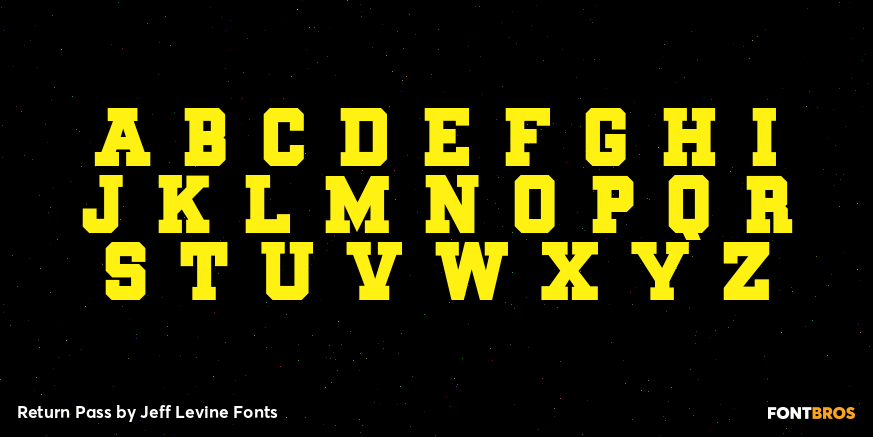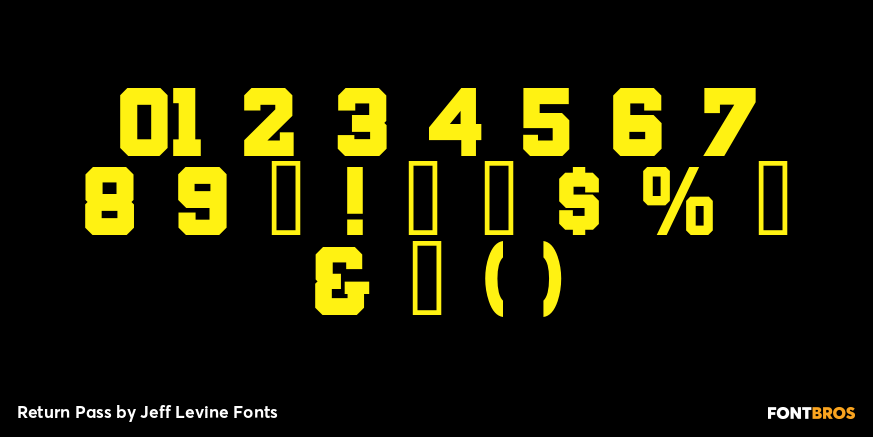
Return Pass
Return Pass JNL is the solid version of Forward Passed JNL and can be used as a standalone font or in combination with Return Pass Fill JNL (the inline version with the main letters stripped away) for a dual color design. In some applications the inline fill may appear to create a cast shadow effect, so it may be necessary to manually adjust any overlaid copy.